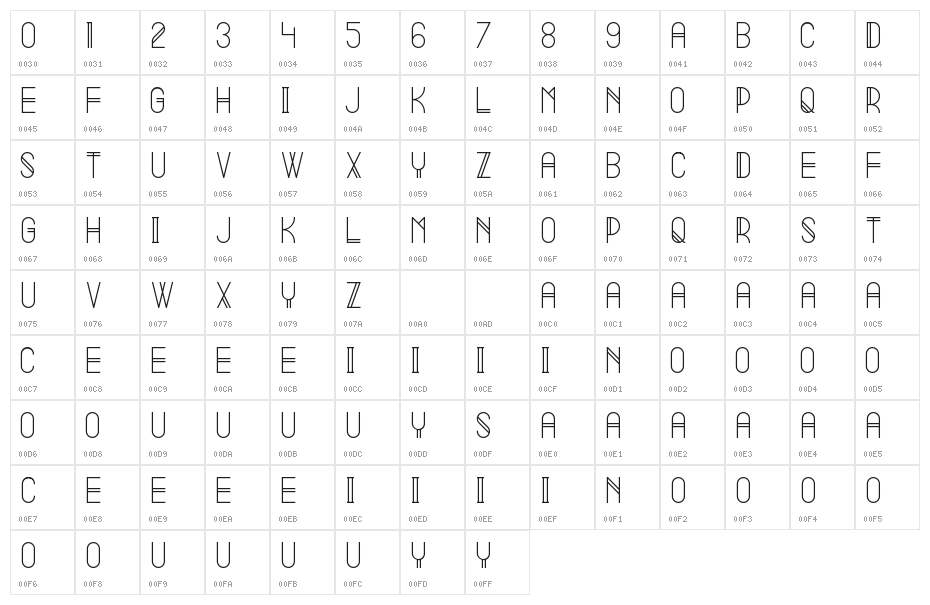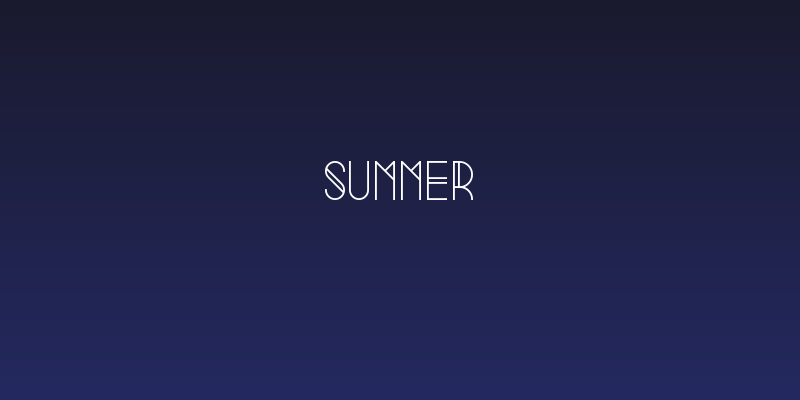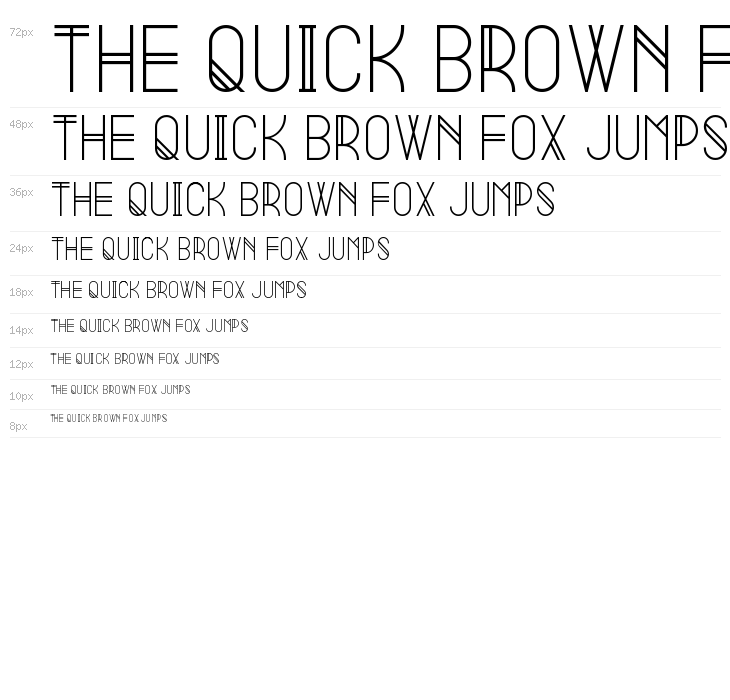
Summer Font
Summer Description
This font features a modern and geometric design with a unique twist on traditional letterforms. Each character is constructed with clean, straight lines and subtle curves, creating a sense of balance and harmony. The uppercase letters are particularly distinctive, with some incorporating double lines or additional strokes that add an artistic flair. The numerals follow the same geometric style, ensuring consistency throughout the typeface. The overall look is sleek and contemporary, making it suitable for a variety of design applications.
| Use Case | Logos, Headlines, Posters |
| Proposed Projects | Ideal for branding, logo design, modern posters, and editorial layouts. |